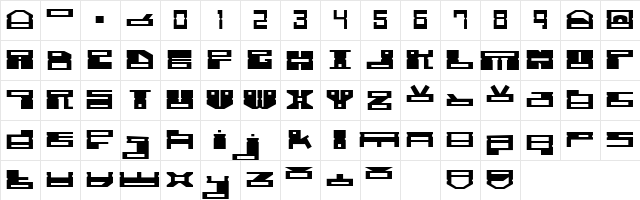
Ramm disc Regular Font Preview
Ramm disc Regular
Ramm disc Regular Font Details
Design Context for Ramm disc Typeface
Ramm disc is a composed and adaptable typeface that performs quietly and consistently across a wide range of design contexts.